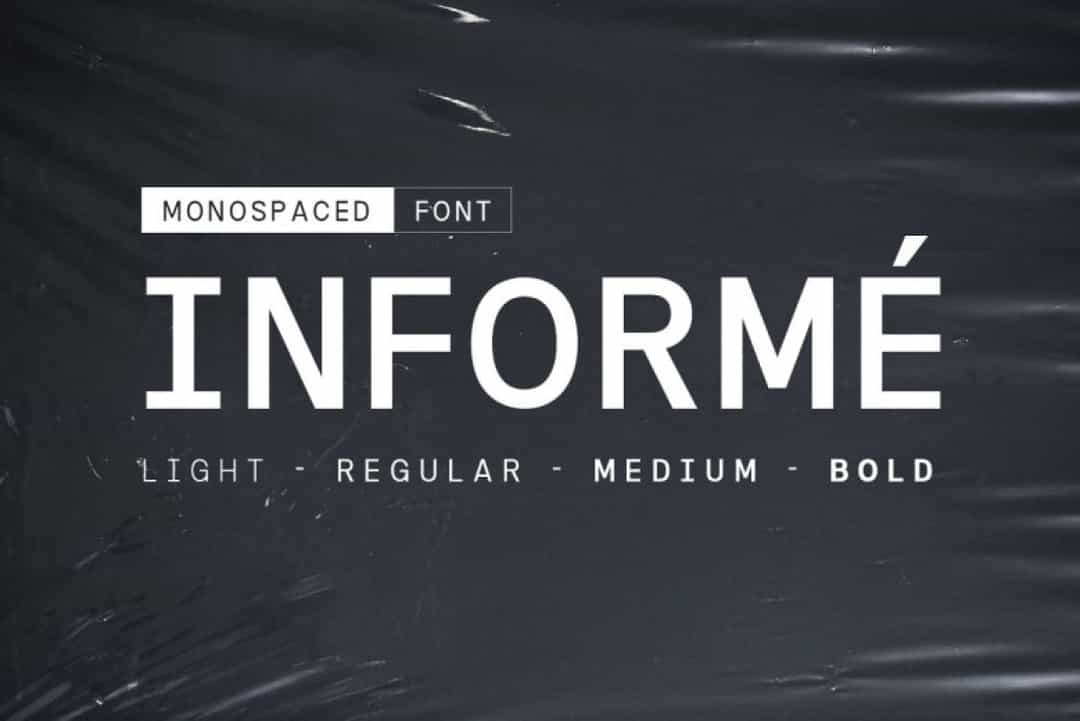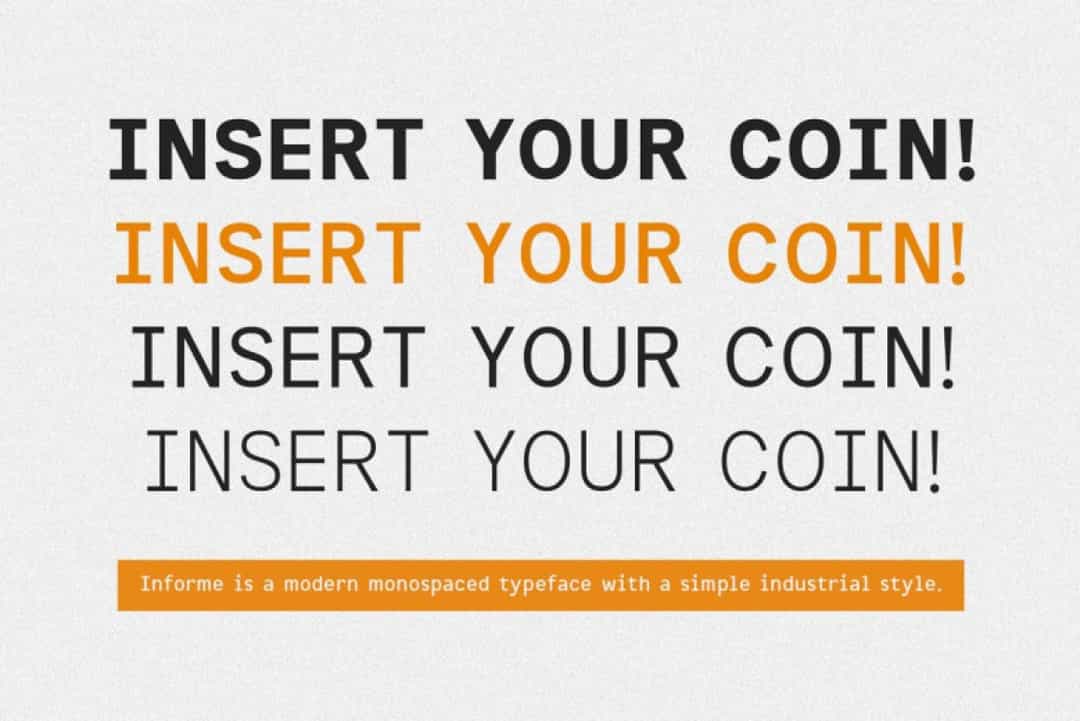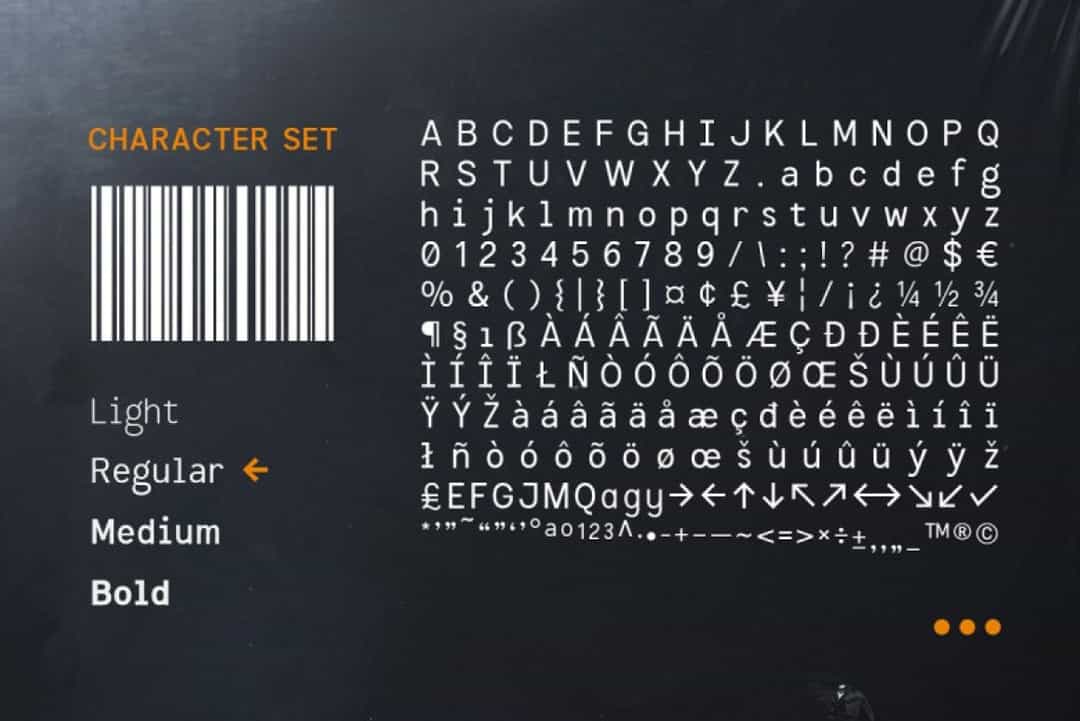
Informe is a contemporary monospaced sans serif font featuring strong letter shapes and industrial style. Developed to be read easily at both small and large sizes, Informe can be seen across digital interfaces such as easy code interfaces as well as labels tickets editorial purposes amongst many others.